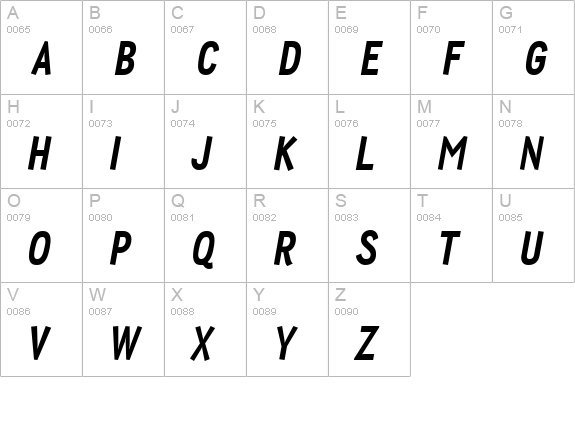
Wyvern Hvy Italic is a distinctive, italic variant in the Wyvern typeface family \xE2\x80\x94 well suited to design and typography projects.
Introducing Wyvern Hvy Italic font - a bold and dynamic typeface that exudes sophistication and modernity. With its sleek and stylish design, this font is perfect for making a statement in your projects. The Wyvern Hvy Italic font strikes the perfect balance between elegance and strength, making it versatile for a wide range of design applications. What's even better is that Wyvern Hvy Italic font is available for free download at FontsMarket.com! Yes, you read that right - this high-quality font can be yours at no cost, allowing you to elevate your designs without breaking the bank. Don't miss out on the opportunity to add Wyvern Hvy Italic font to your font collection and take your projects to the next level. Download it now and let your creativity soar!